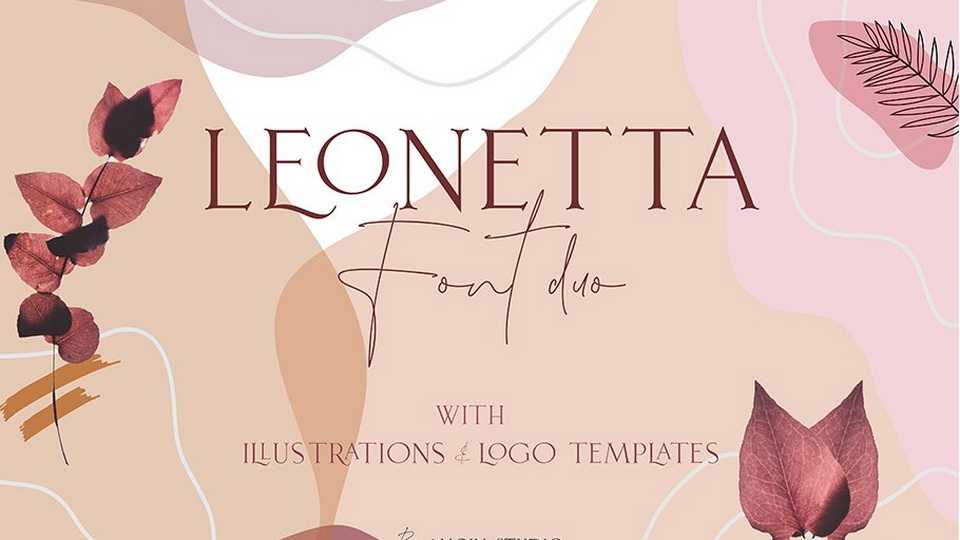
Download Leonetta typeface, a perfectly paired elegant serif font and luxury handwriting script. Leonetta will give you the flexibility to mix and match the letter so it can speak visually the way you speak.